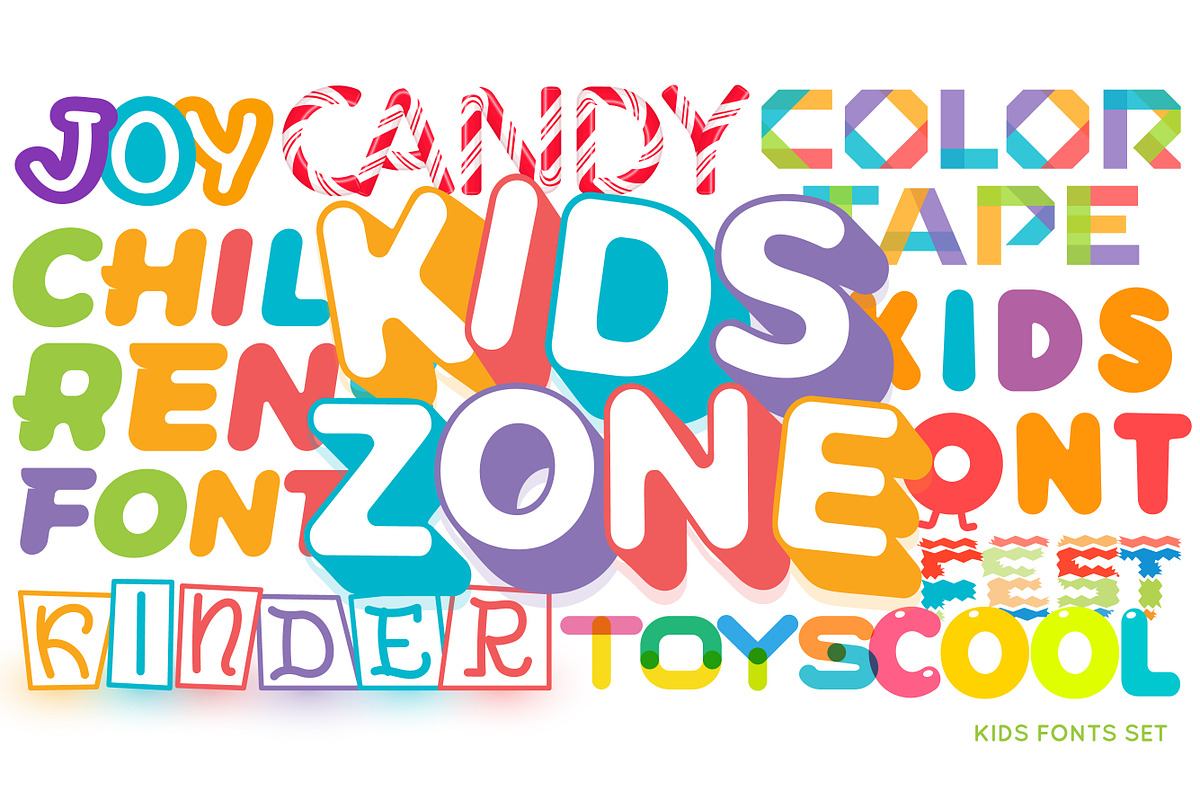
Kids Font Bundle is perfect for children's book illustrations, educational worksheets, birthday party invitations, toy packaging design, playground signage, daycare center branding, kids' clothing labels, nursery wall art, school newsletters, children's app interfaces, animated cartoon titles, and playful learning materials.
Kids Font Bundle is exciting because it captures the boundless imagination and joyful creativity of childhood through vibrant, playful letterforms that instantly connect with young audiences. This delightful collection features fun, approachable typography that makes reading enjoyable and learning engaging for children of all ages. Each font radiates happiness and wonder, transforming ordinary text into magical adventures that spark curiosity and imagination.
Kids Font Bundle includes diverse font families: Playful Primary Script, Bubbly Bold Display, Crayon Texture Style, Marker Fun Writing, Storybook Serif, Cartoon Bubble Letters, Doodle Sketch Font, Rainbow Color Style, Animal-Inspired Characters, and Special Kid-Friendly Symbols, offering comprehensive solutions for child-oriented design projects.
This enchanting typography collection transforms educational and entertainment content into engaging visual experiences through its authentic child-friendly aesthetic and imaginative design approach. Kids Font Bundle Free Download provides designers and educators with access to premium children's typography that instantly adds warmth, playfulness, and educational value to any project. The bundle's extensive variety ensures perfect matches for different age groups while maintaining consistent appeal and readability.
Teachers, parents, and children's content creators love Kids Font Bundle for its ability to make learning fun and accessible while maintaining professional design standards. Each font demonstrates unique personality traits that appeal to different aspects of childhood development, from early learning recognition to creative expression activities. The comprehensive character sets include child-friendly numerals, educational symbols, and decorative elements designed specifically for young learners.
The development process behind Kids Font Bundle involved collaborating with child development specialists and educators to ensure each font supports learning objectives while maintaining visual appeal. This research-based approach guarantees that every typeface promotes positive reading experiences and educational engagement across various learning environments and developmental stages.
Whether creating educational materials, children's entertainment content, or family-oriented marketing campaigns, this font bundle delivers exceptional results that delight young audiences and support learning objectives. Download Kids Font Bundle today and discover how specialized children's typography can bring joy, wonder, and educational excellence to your creative projects designed for the next generation.